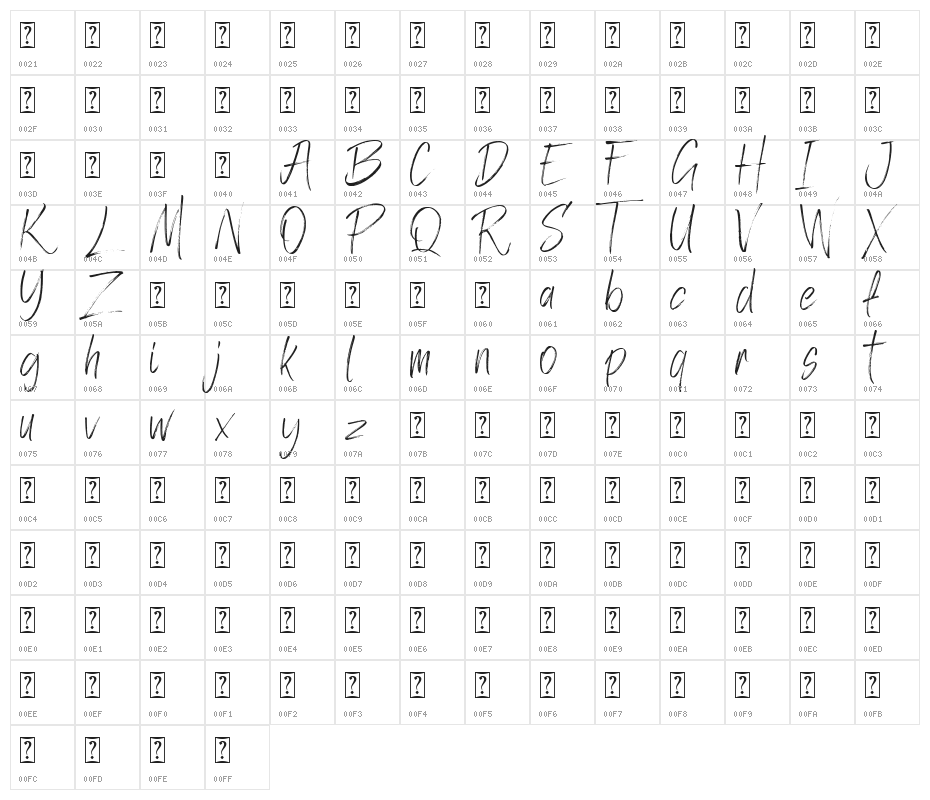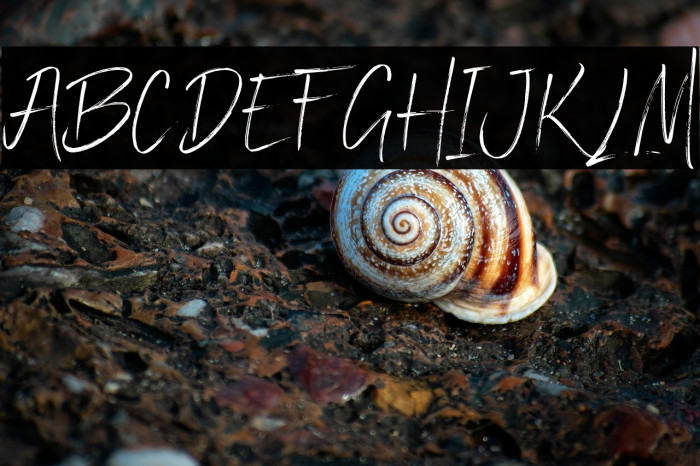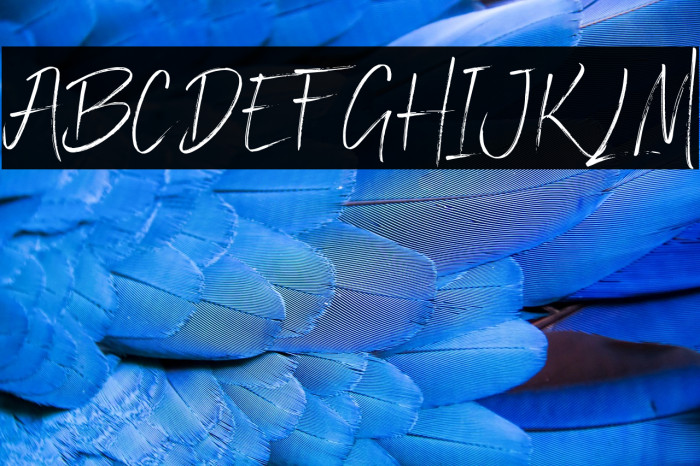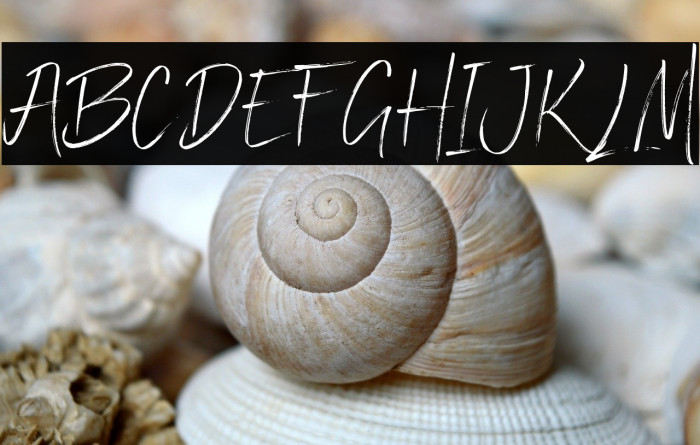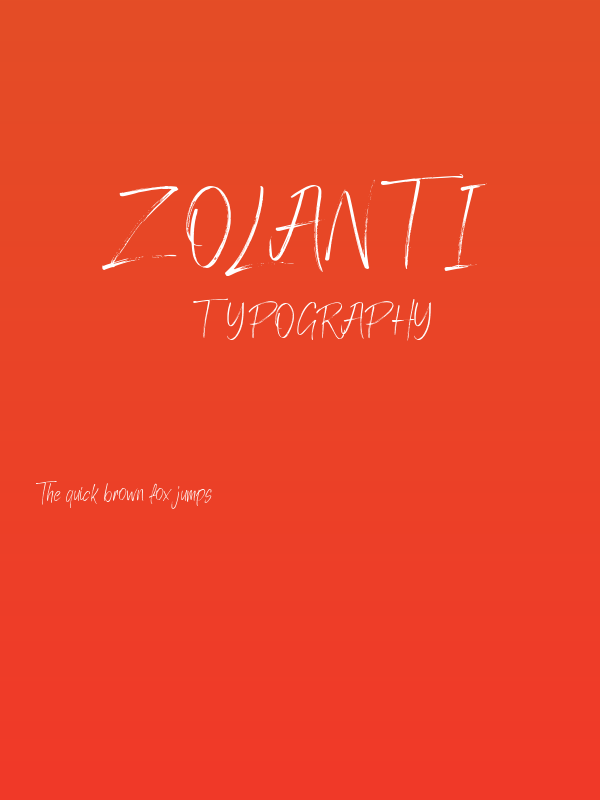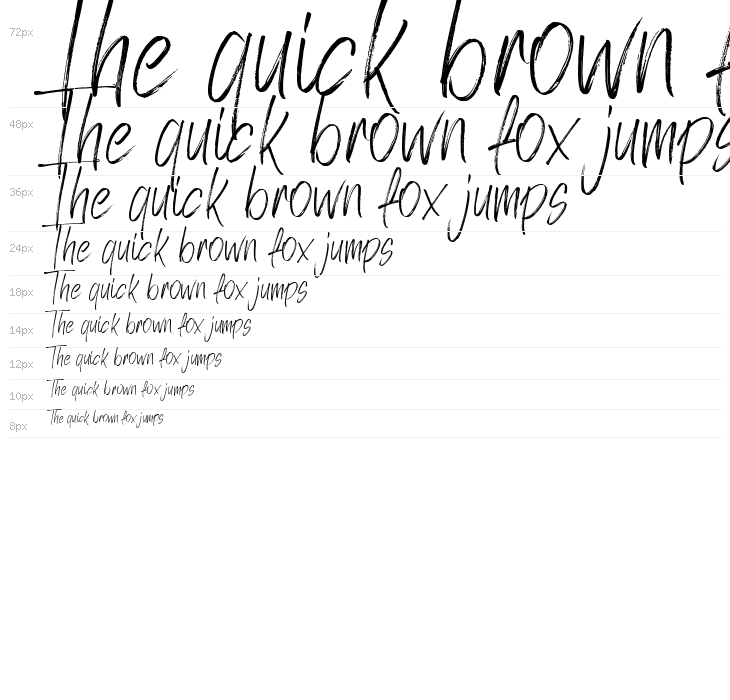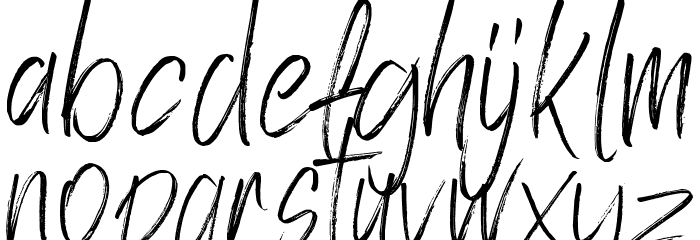
Zolanti Font
Zolanti Description
This font features a dynamic and expressive handwritten style, characterized by its fluid and organic strokes. The uppercase and lowercase letters exhibit a natural flow, with varying stroke widths that add a sense of movement and energy. The letters are slightly slanted, enhancing the casual and informal appearance. The font lacks traditional serifs, giving it a modern and approachable feel. The characters are well-spaced, allowing for readability while maintaining the artistic flair. This font is ideal for projects that require a personal touch or a creative, artistic vibe.